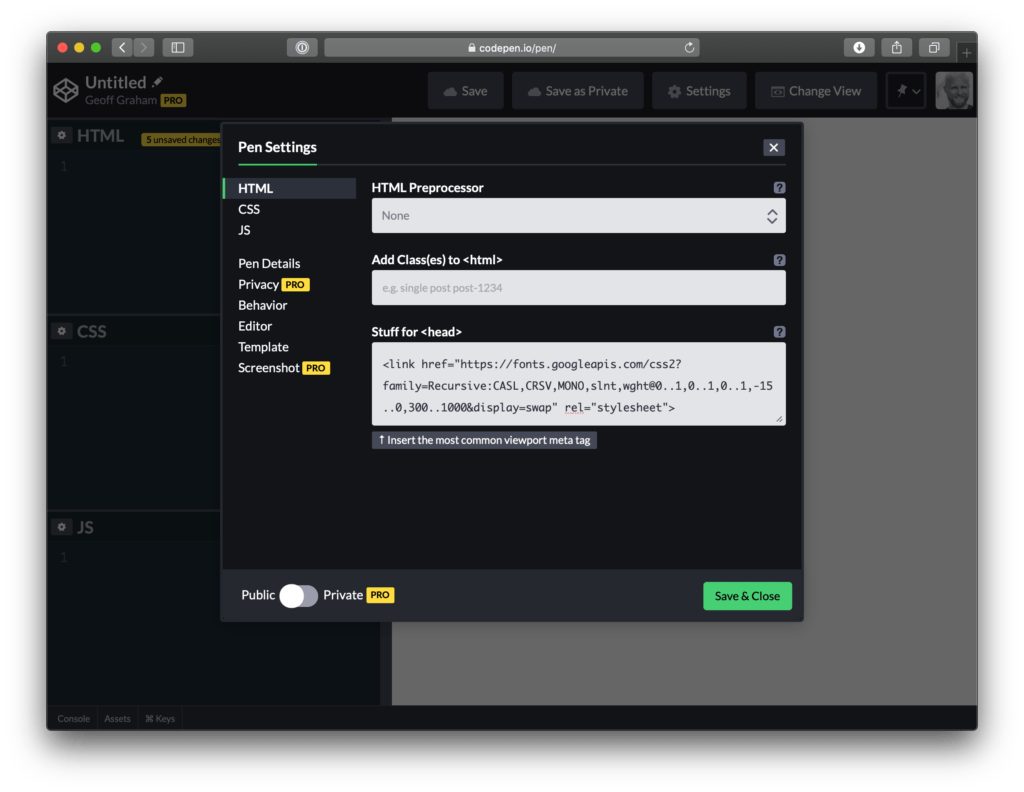
I have spent the past several years working (alongside a bunch of super talented people) on a font family called Recursive Sans & Mono, and it just launched officially on Google Fonts!
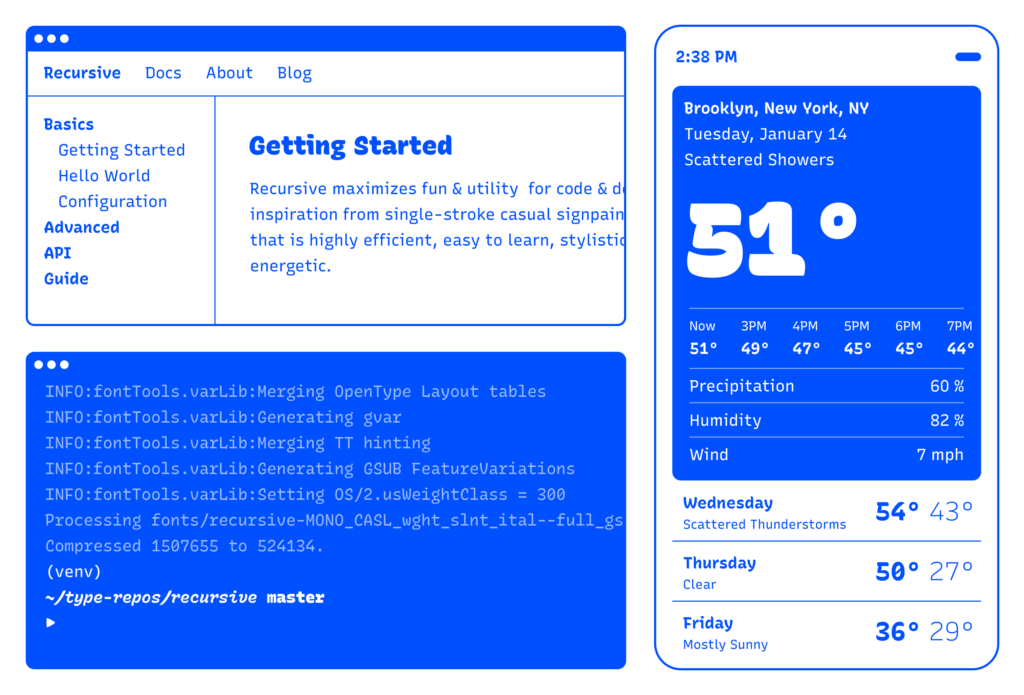
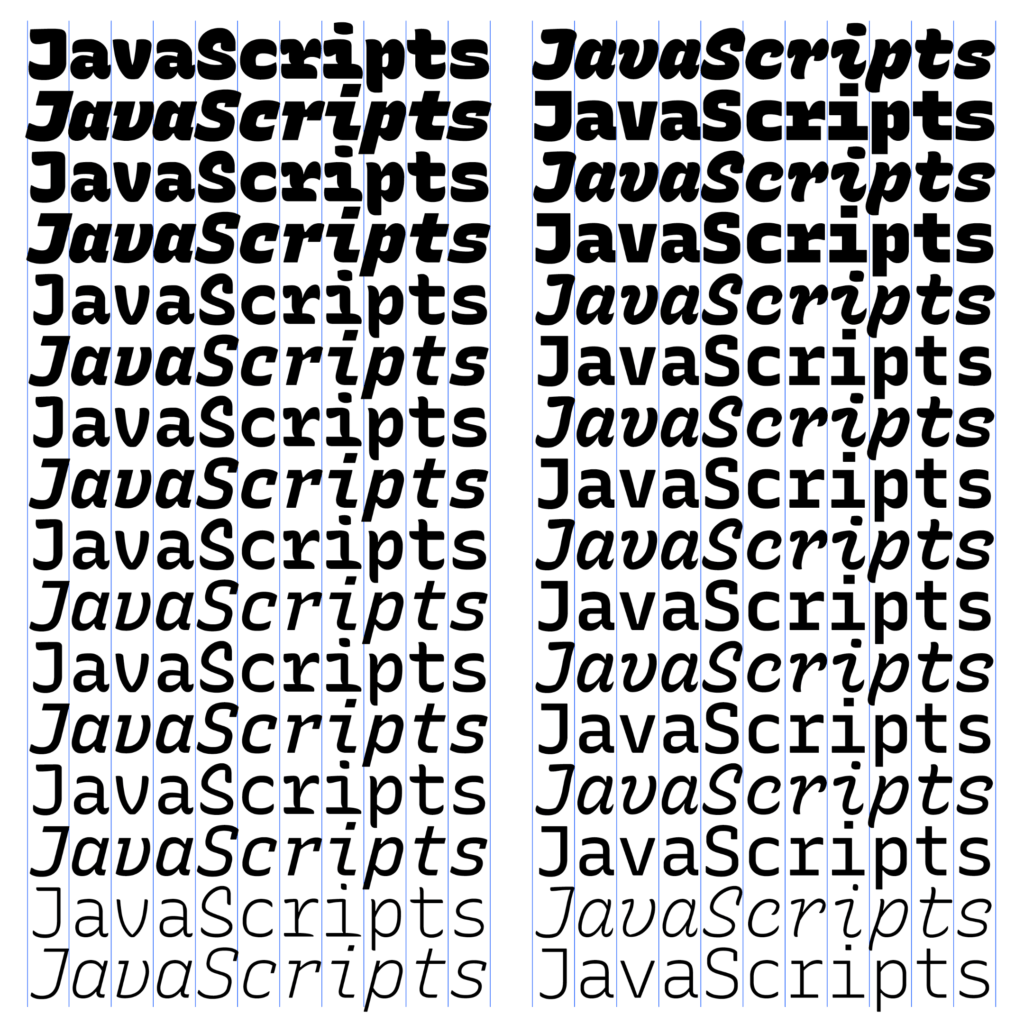
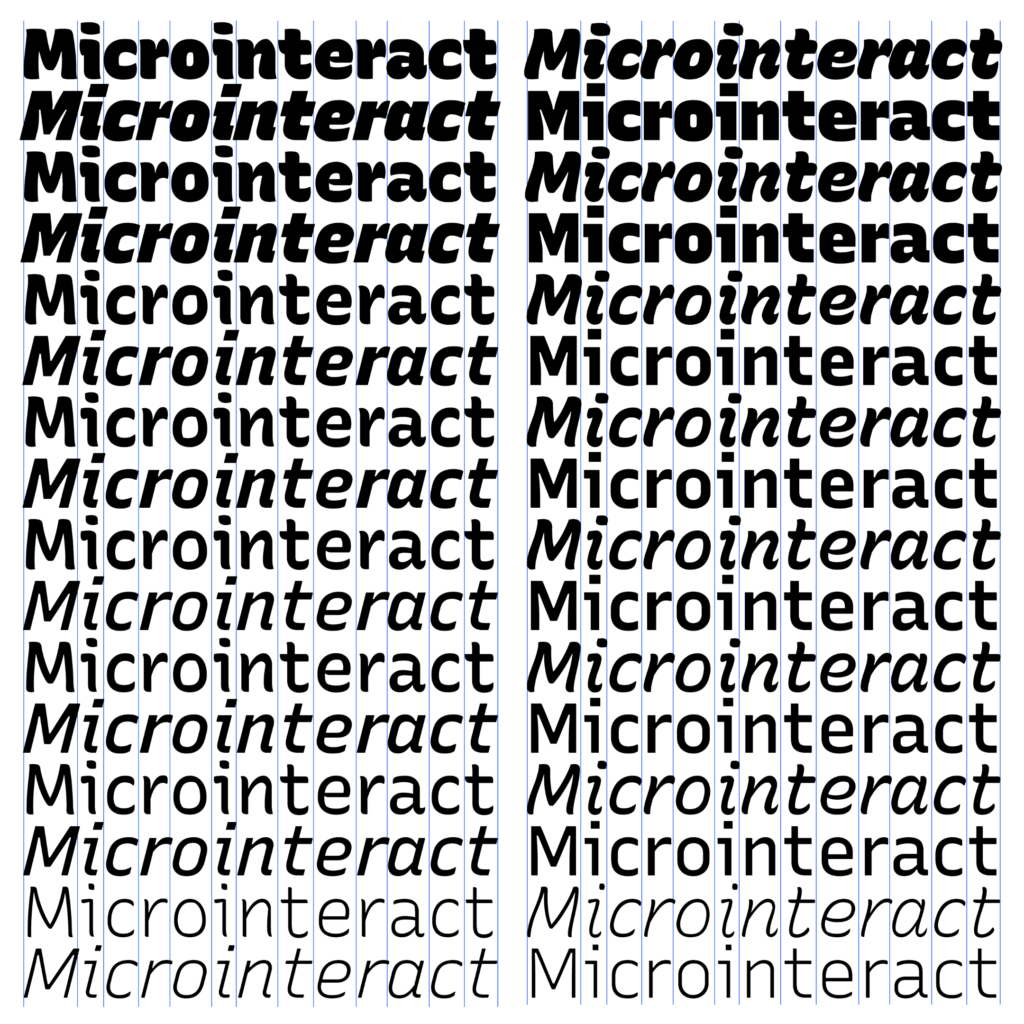
I started Recursive as a thesis project for a type design masters program at KABK TypeMedia, and when I launched my type foundry, Arrow Type, I was subsequently commissioned by Google Fonts to finish and release Recursive as an open-source, OFL font.
Recursive is made to be a flexible type family for both websites and code, where its main purpose is to give developers and designers some fun & useful type to play with, combining fresh aesthetics with the latest in font tech.
First, a necessary definition: variable fonts are font files that fit a range of styles inside one file, usually in a way that allows the font user to select a style from a fluid range of styles. These stylistic ranges are called variable axes, and can be parameters, like font weight, font width, optical size, font slant, or more creative things. In the case of Recursive, you can control the “Monospacedness” (from Mono to Sans) and “Casualness” (between a normal, linear style and a brushy, casual style). Each type family may have one or more of its own axes and, like many features of type, variable axes are another design consideration for font designers.
You may have seen that Google Fonts has started adding variable fonts to its vast collection. You may have read about some of the awesome things variable fonts can do. But, you may not realize that many of the variable fonts coming to Google Fonts (including Recursive) have a lot more stylistic range than you can get from the default Google Fonts front end.
Because Google Fonts has a huge range of users — many of them new to web development — it is understandable that they’re keeping things simple by only showing the “weight” axis for variable fonts. But, for fonts like Recursive, this simplification actually leaves out a bunch of options. On the Recursive page, Google Fonts shows visitors eight styles, plus one axis. However, Recursive actually has 64 preset styles (also called named instances), and a total of five variable axes you can adjust (which account for a slew of more potential custom styles).
Recursive can be divided into what I think of as one of four “subfamilies.” The part shown by Google Fonts is the simplest, proportional (sans-serif) version. The four Recursive subfamilies each have a range of weights, plus Italics, and can be categorized as:
- Sans Linear: A proportional, “normal”-looking sans-serif font. This is what gets shown on the Google Fonts website.
- Sans Casual: A proportional “brush casual” font
- Mono Linear: A monospace “normal” font
- Mono Casual: A monospace “brush casual” font
This is probably better to visualize than to describe in words. Here are two tables (one for Sans, the other for Mono) showing the 64 named instances:
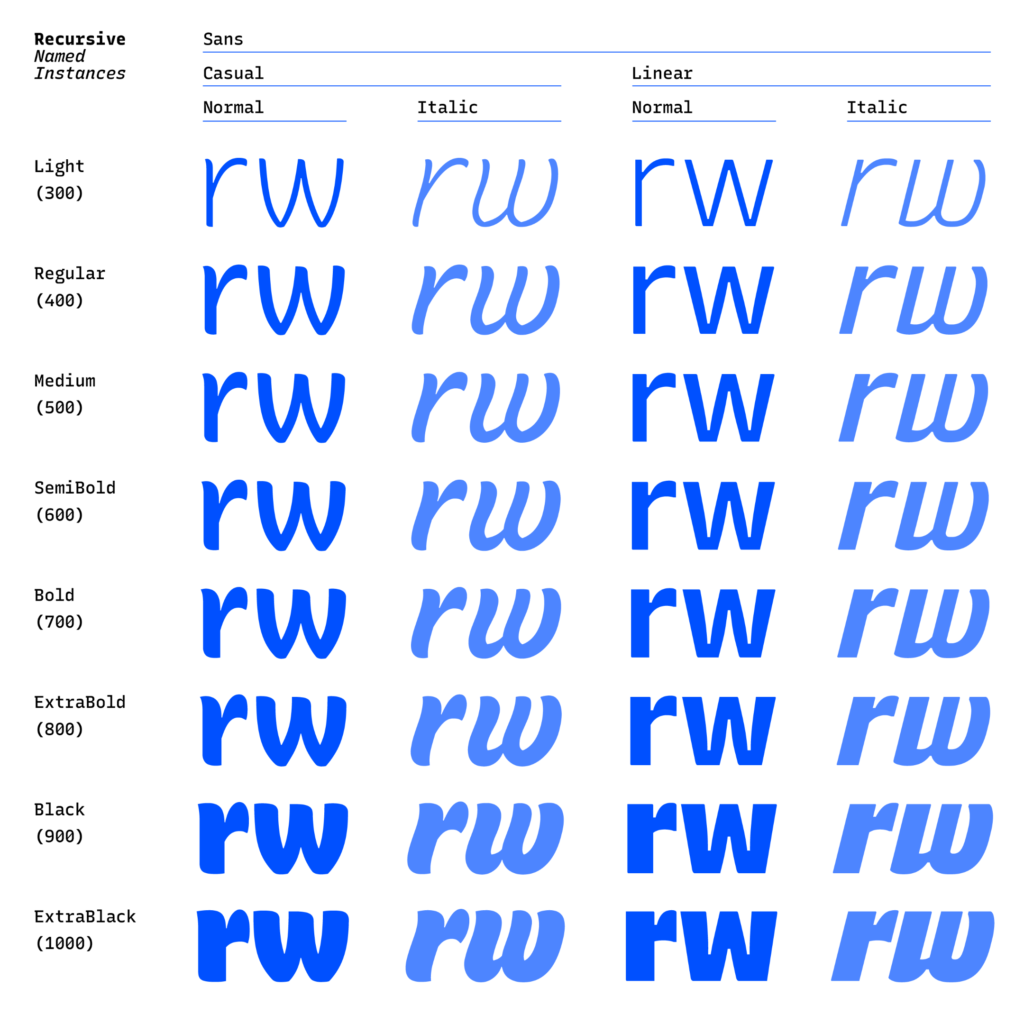
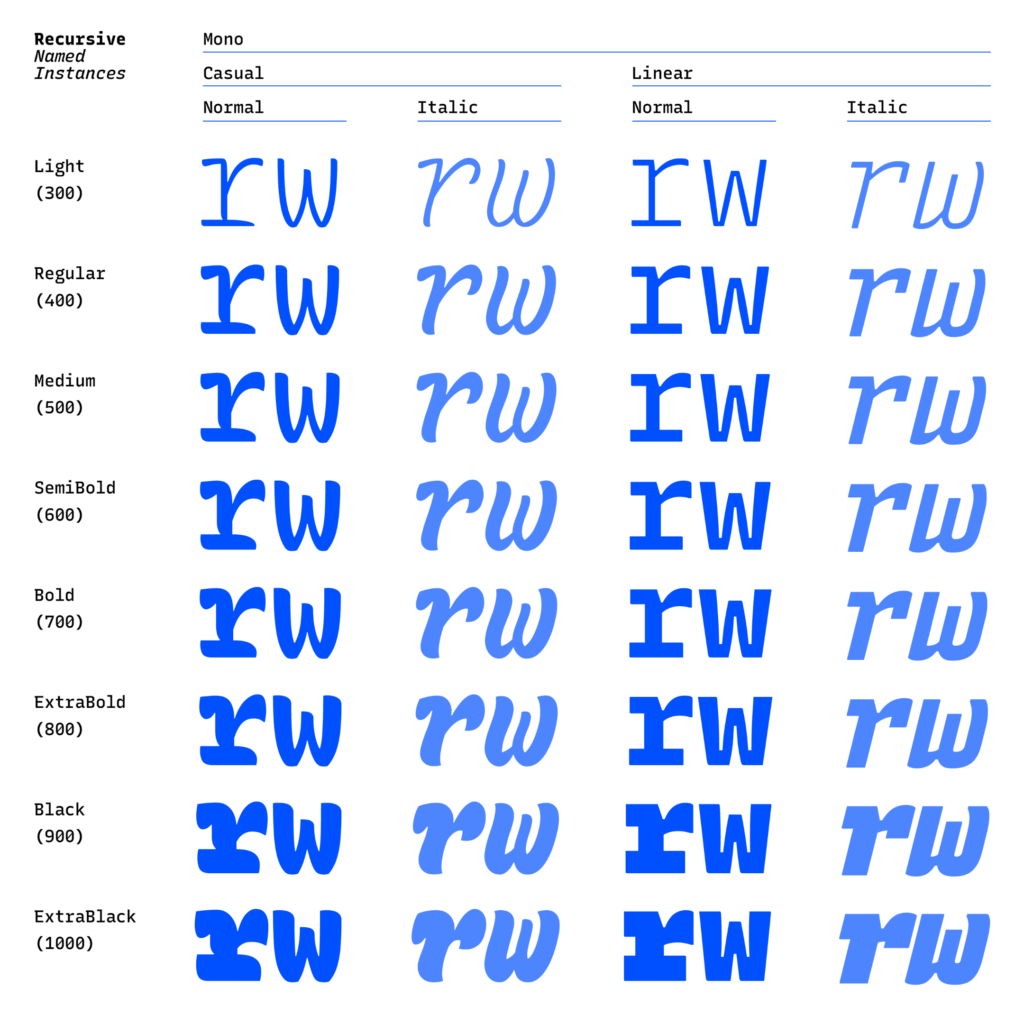
But again, the main Google Fonts interface only provides access to eight of those styles, plus the Weight axis:
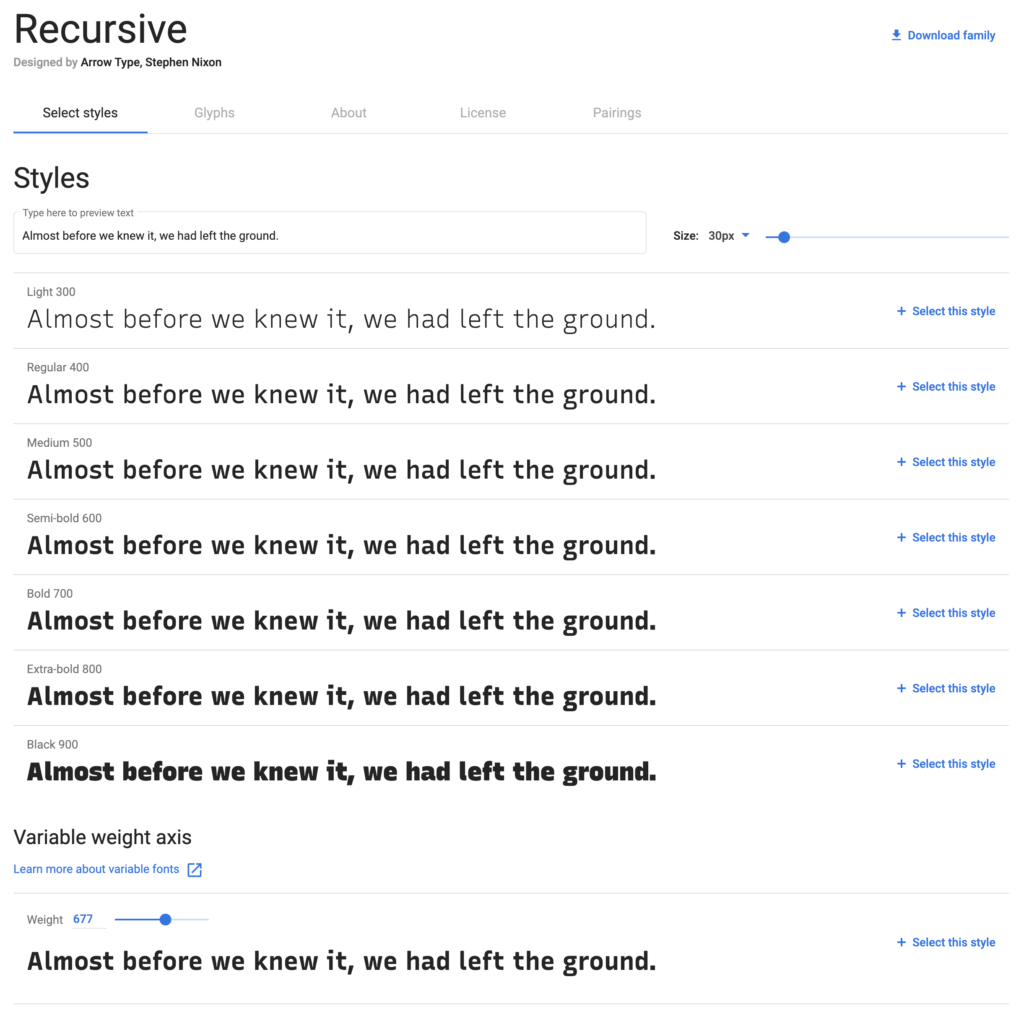
Not many variable fonts today have more than a Weight axis, so this is an understandable UX choice in some sense. Still, I hope they add a little more flexibility in the future. As a font designer & type fan, seeing the current weight-only approach feels more like an artificial flattening than true simplification — sort of like if Google Maps were to “simplify” maps by excluding every road that wasn’t a highway.
Luckily, you can still access the full potential of variable fonts hosted by Google Fonts: meet the Google Fonts CSS API, version 2. Let’s take a look at how you can use this to get more out of Recursive.
But first, it is helpful to know a few things about how variable fonts work.
How variable fonts work, and why it matters
If you’ve ever worked with photos on the web then you know that you should never serve a 9,000-pixel JPEG file when a smaller version will do. Usually, you can shrink a photo down using compression to save bandwidth when users download it.
There are similar considerations for font files. You can often reduce the size of a font dramatically by subsetting the characters included in it (a bit like cropping pixels to just leave the area you need). You can further compress the file by converting it into a WOFF2 file (which is a bit like running a raster image file though an optimizer tool like imageOptim). Vendors that host fonts, like Google Fonts, will often do these things for you automatically.
Now, think of a video file. If you only need to show the first 10 seconds of a 60-second video, you could trim the last 50 seconds to have a much small video file.